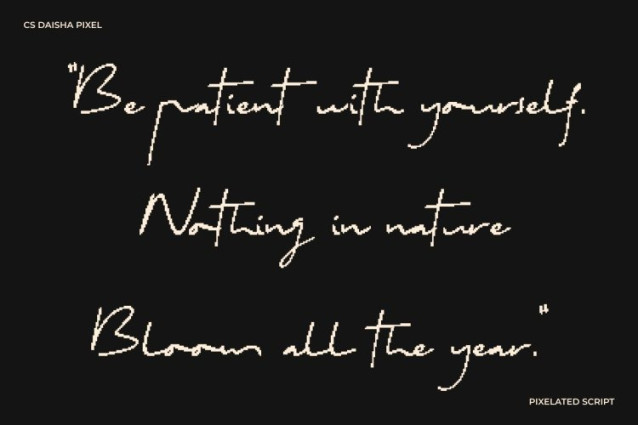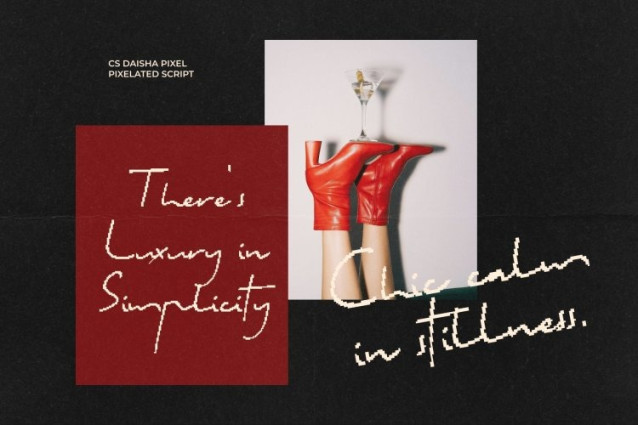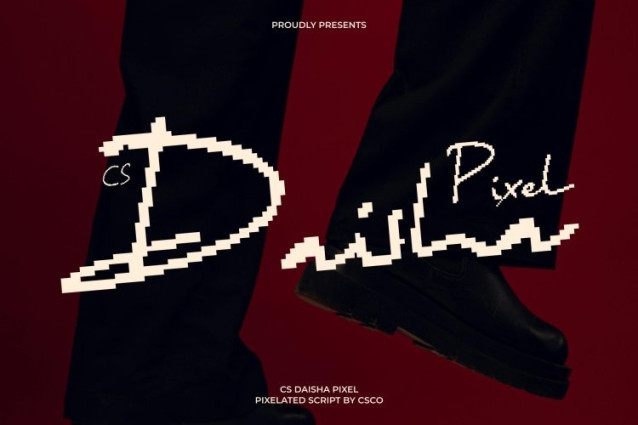
CS Daisha Pixel Font
CS Daisha Pixel Font This is a soft and expressive handwritten script font inspired by the sincerity of natural pen strokes, refined with subtle pixel precision. Designed to feel personal and warm, it captures the charm of real handwriting while adapting beautifully to modern digital environments.
Natural Pen Strokes with Expressive Pixel Detail
The beauty of this font lies in its fluid stroke variations and natural connections, carefully shaped within a refined pixel structure. Each letter feels spontaneous yet balanced, creating a relaxed handwritten look that remains clear and readable. The pixel detail adds a modern digital texture while preserving the font’s soft, genuine character.
Warm, Friendly Style for Personal and Casual Designs
With its smooth script and approachable rhythm, this font brings warmth and intimacy to any composition. The font feels friendly and inviting, making messages more personal and emotionally engaging. Whether used for short quotes or longer text, it maintains clarity while enhancing expression through its handwritten charm.
Perfect for Branding, Quotes, Invitations, and Digital Creativity
This font is perfect for personal branding, inspirational quotes, casual invitations, packaging, and social media graphics. Its blend of authentic handwriting and subtle digital refinement makes it especially suited for lifestyle brands, small businesses, and creative projects that aim to feel heartfelt, modern, and relatable.